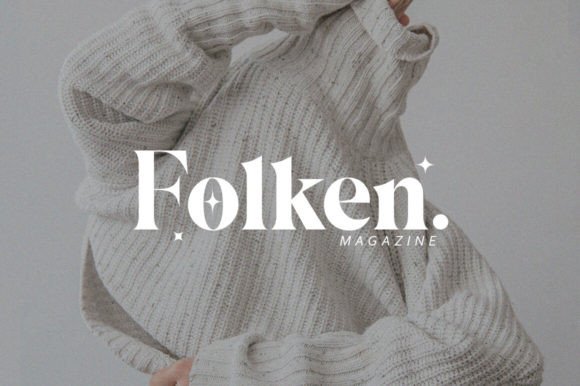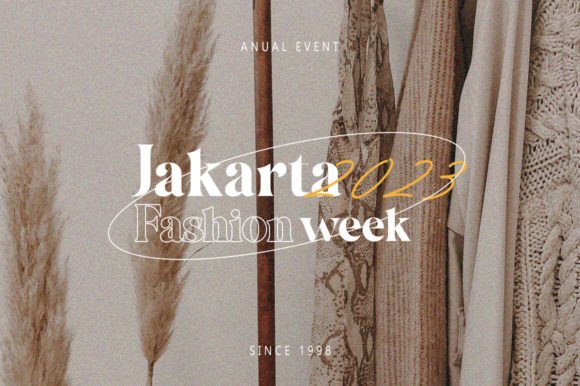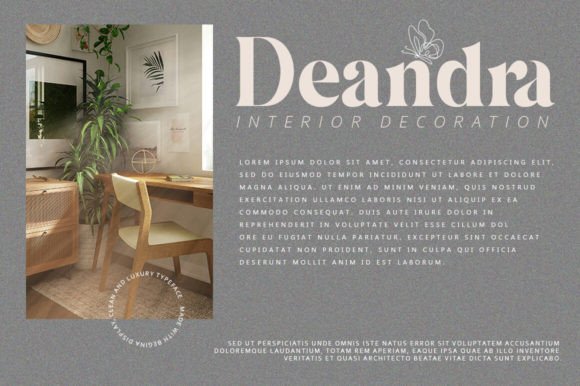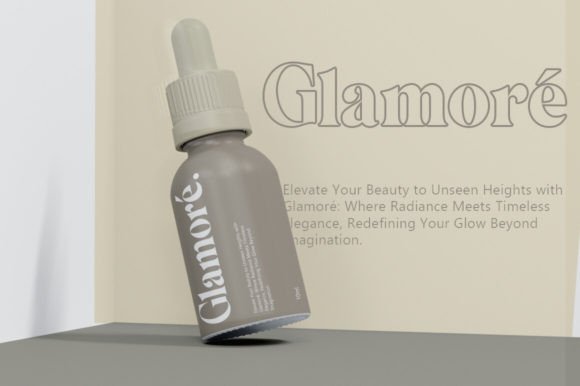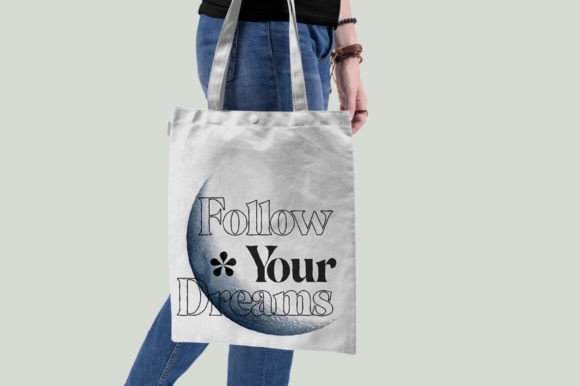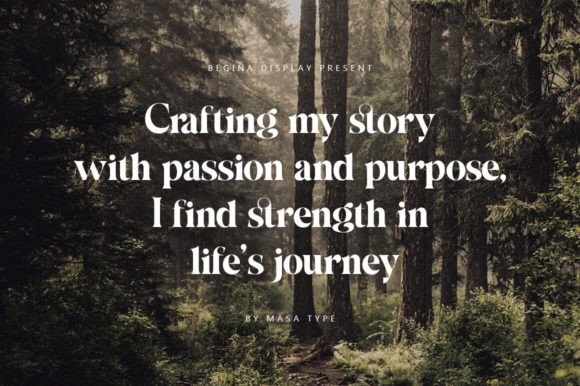
Have you ever been working on a design project, pouring your heart and soul into every detail, only to feel like something’s missing? You’ve tried every font, every color scheme, and every layout, but it just doesn’t feel like it’s coming together? That’s where the Begina Display Font comes in – a modern vintage serif font that’s designed to add that extra touch of elegance and sophistication to your designs.
This beautiful font is more than just a pretty face – it’s packed with features that will make your life easier as a designer. With access to OpenType features, you’ll have a vast selection of alternates letters and ligatures at your fingertips, allowing you to customize your font to fit your unique style. Whether you’re working on a high-end branding project or a luxury packaging design, the Begina Display Font is the perfect choice to give your designs that extra oomph.
- Unique Characteristics: Begina Display Font features a unique blend of modern and vintage elements, with intricate details and ornaments, making it perfect for creative and artistic applications.
- Font Style: Begina Display Font is available in regular and bold styles, offering flexibility and versatility in typography and design.
Begina Display Font Review
Begina Display Font caught my eye with its unique and modern aesthetic. Here’s what I like about it: ✨
- Uniqueness: Begina Display Font offers a distinctive look that can help your design stand out.
- Legibility: The font is clear and easy to read, even at larger sizes.
- Flexibility: It can be used for a wide range of applications, from headings to logos.
- Lack of customization options: The font is quite fixed in its design, making it difficult to adjust to specific design needs.
- Not suitable for small text: While the font is legible at larger sizes, it can become too bold and overwhelming when used in smaller text.
- May not be compatible with all operating systems: I noticed some minor rendering issues on older operating systems.
Overall, I think Begina Display Font is a great choice for designers who want to add some visual interest to their work. While it has its limitations, its unique look and good legibility make it a solid option for many design applications.
Tips for Getting the Most Out of Begina Display Font
For the best results, use Begina Display Font for headings and titles. It’s a display font, so it’s best suited for large text sizes. Experiment with different font sizes and color combinations to create a visually appealing design.
Begina Display Font is perfect for:
- Headings and titles in presentations and documents.
- Displaying quotes or testimonials in a design.
- Creating eye-catching social media graphics.